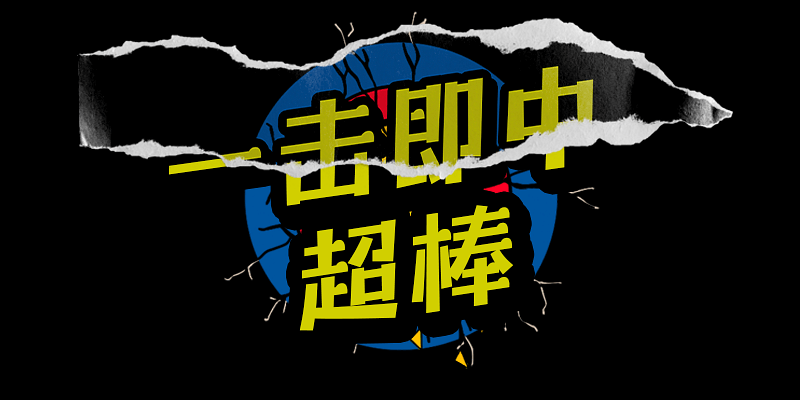
HelloFont ID Kuai Le Ti Font Free Download is a cheerful, playful Chinese display font designed to bring happiness and charm to your creative projects. The name “Kuai Le Ti” (快乐体) literally means “Happy Style,” and this font lives up to its name with rounded strokes, soft curves, and a lighthearted personality that’s perfect for branding, children’s books, packaging, comics, and festive design themes.
HelloFont ID Kuai Le Ti Font Free Download features a casual, handwritten appearance while maintaining good readability across both traditional and simplified Chinese characters. It also supports basic Latin characters, making it ideal for bilingual projects or international brands looking to bring warmth and approachability into their typography.
Whether you're designing for food packaging, toy branding, event flyers, or social media graphics, this font adds a joyful tone that resonates across cultures and age groups.
Fun, friendly, and full of personality—HelloFont ID Kuai Le Ti is a perfect pick when your design needs a dose of delight and positivity.